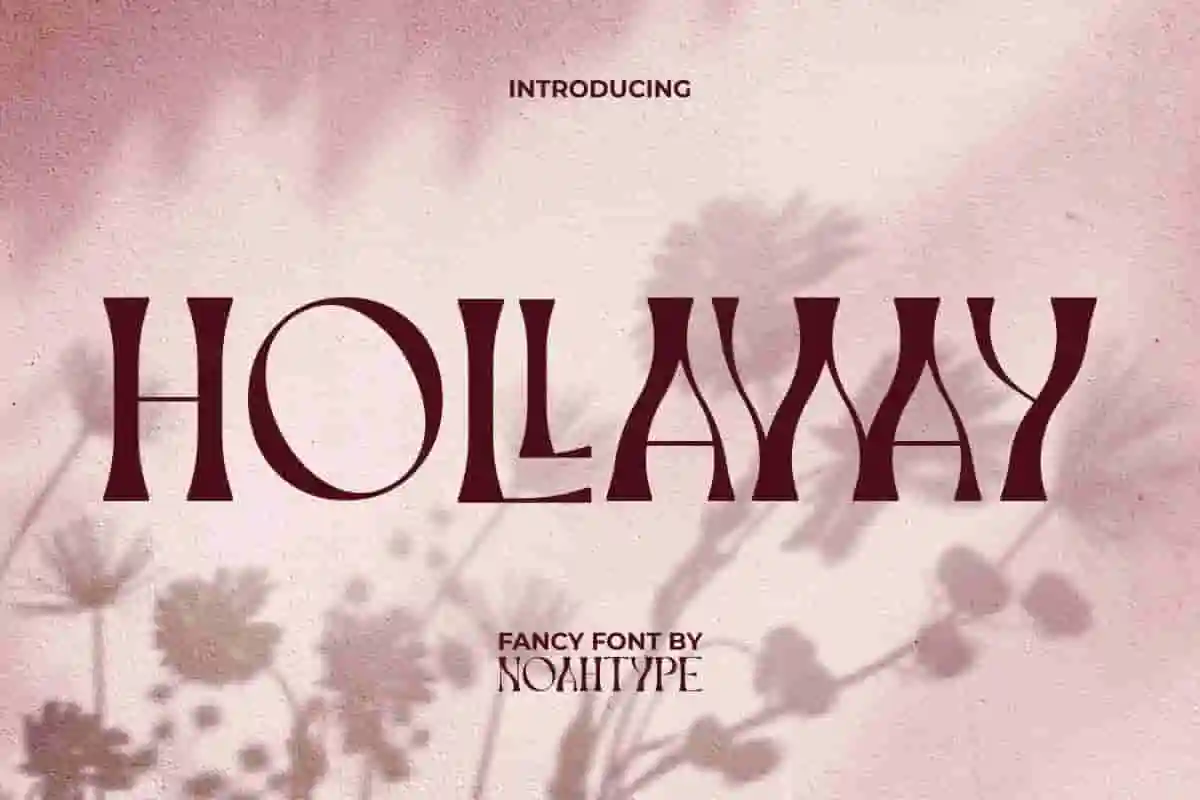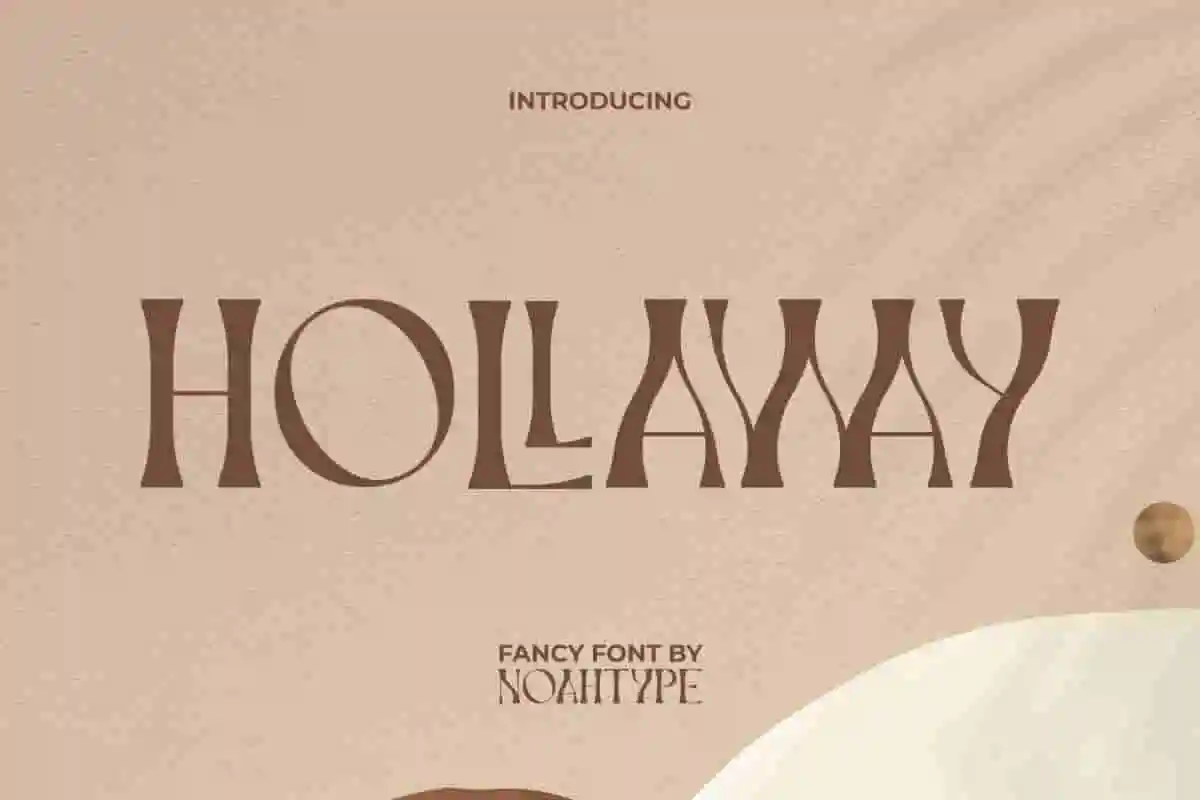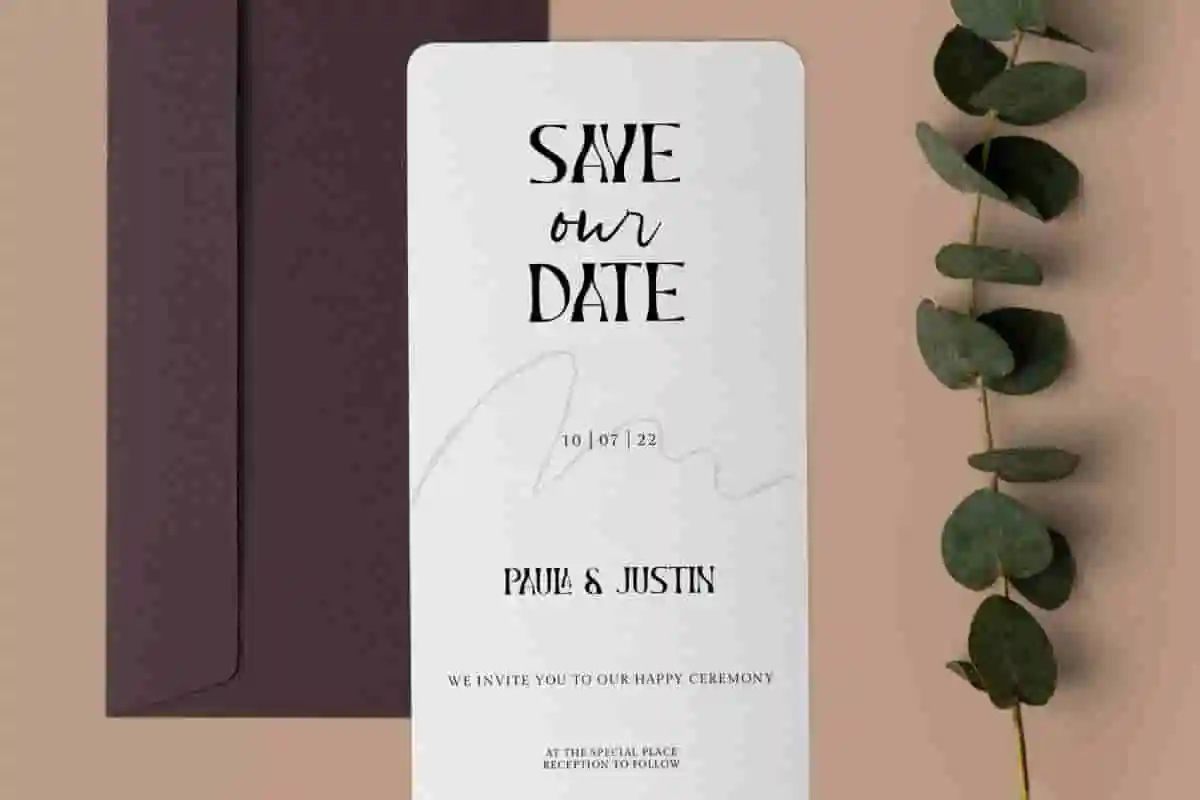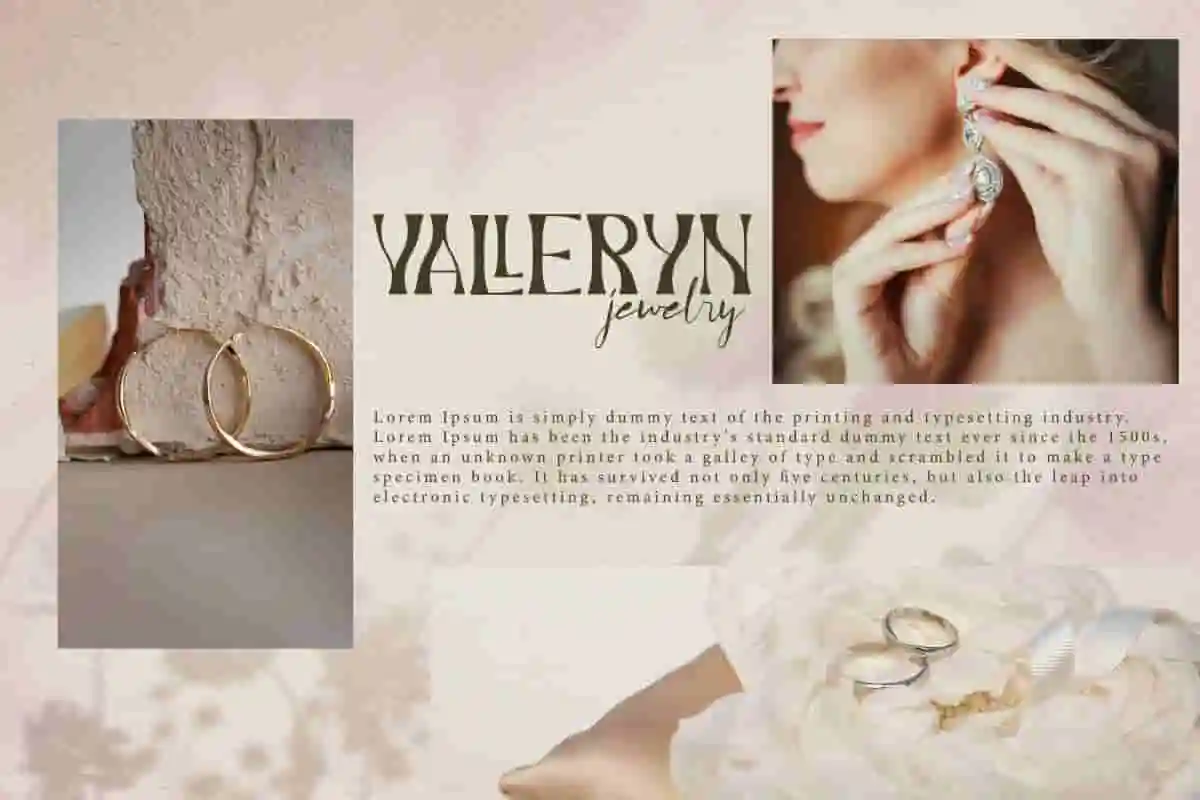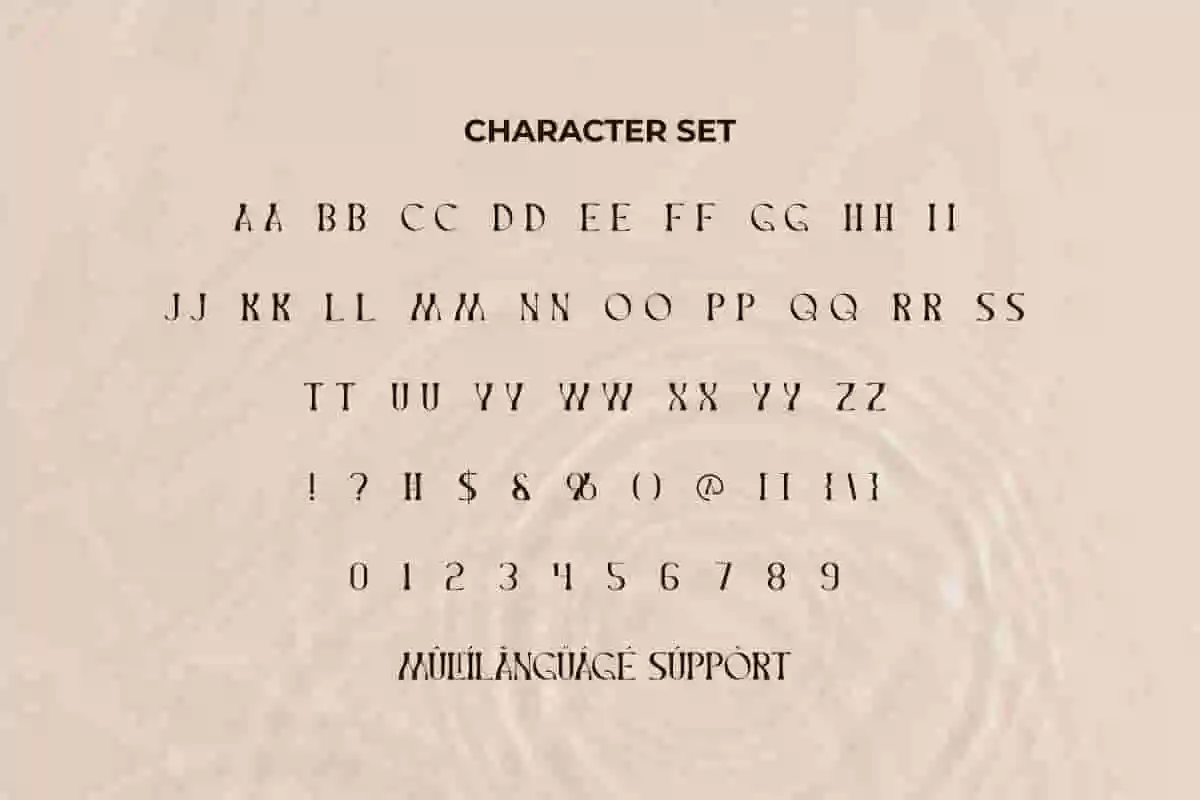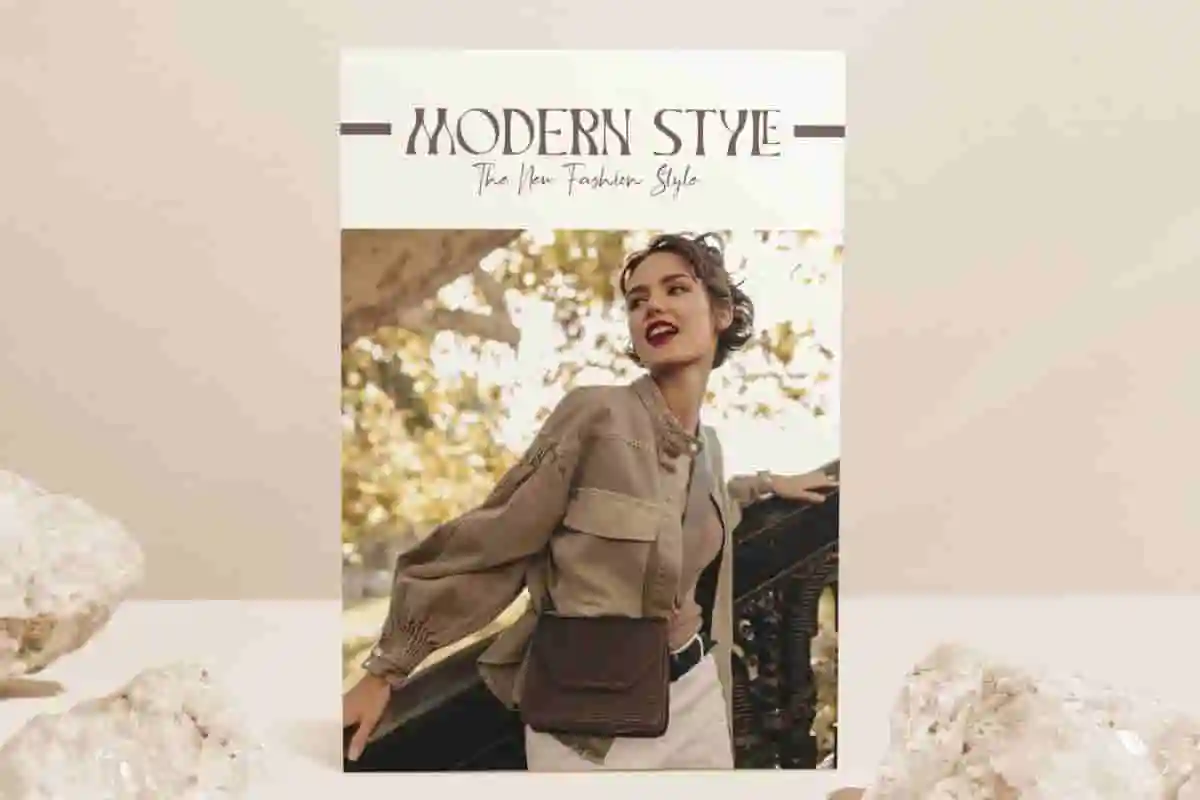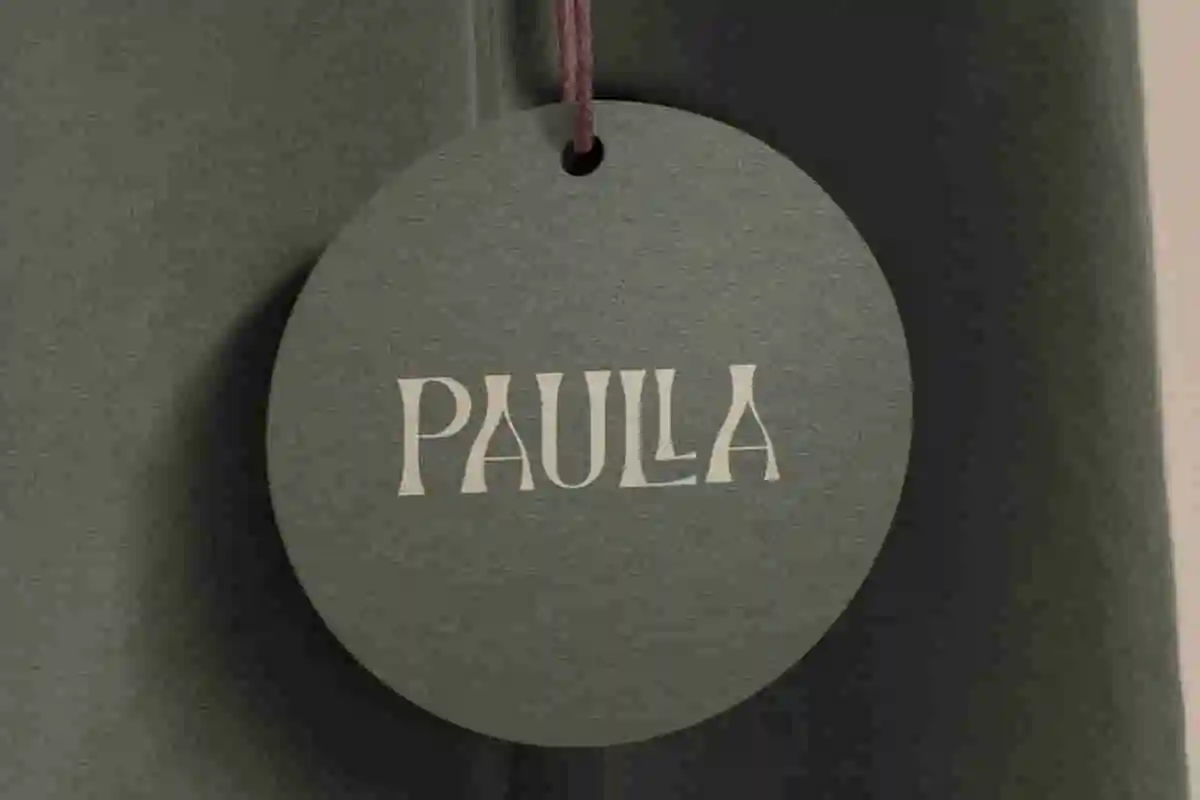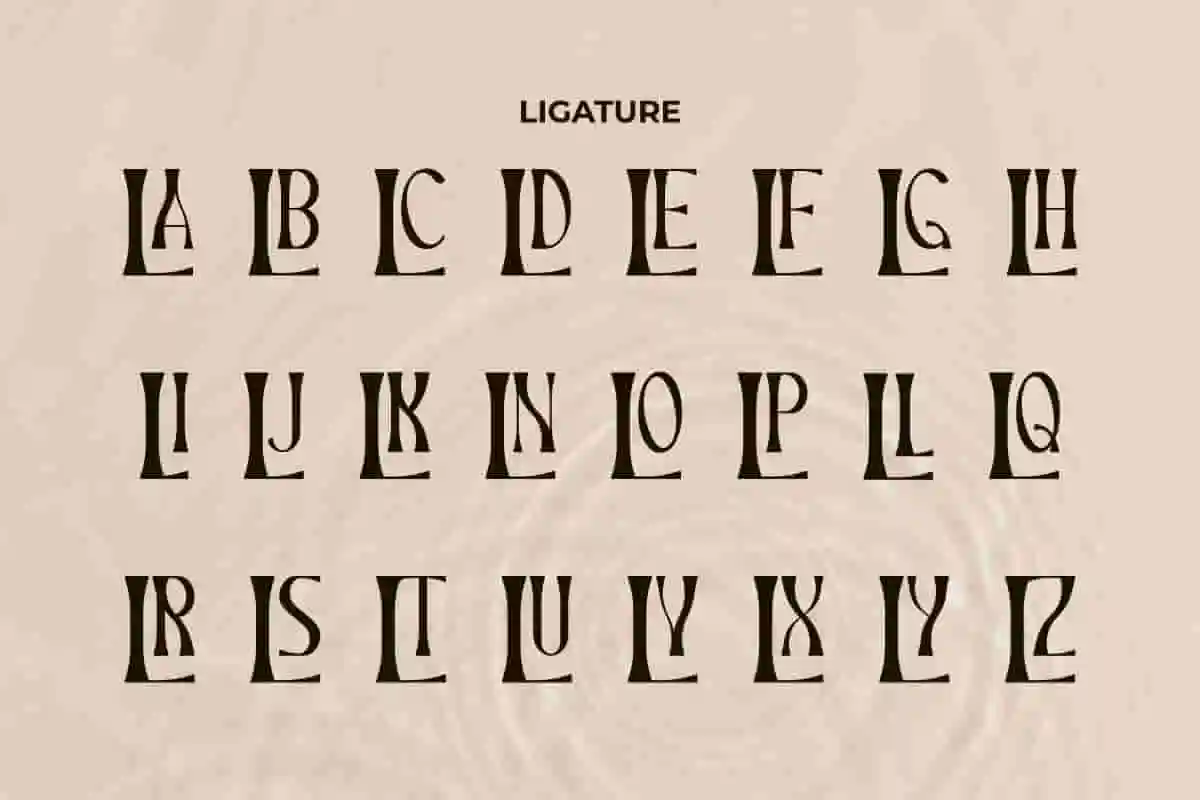
Hollaway Font is a fancy unique display font with many eye catching ligatures. This font consists of combinations, thin lines, beautiful curves, and the ends of the letters are made thick to emphasize the beauty displayed. It will be good for any designs, such as brand image, business card, catalog, cover, custom design, greeting card, invitation, label, product packaging, quote, signage, stationery, web, and more!
Hollaway Font includes full set of ALL CAPS for Uppercase and Lowercase Basic Characters, Numerals, Punctuation, Symbol, and Ligature. The characters of this font will give aesthetic and stylish looks, also a perfect choice for many industries, such as advertisement, beauty product, café, event or wedding organizer, fashion, jewelry, perfume, printing, publishing, spa and salon, etc.